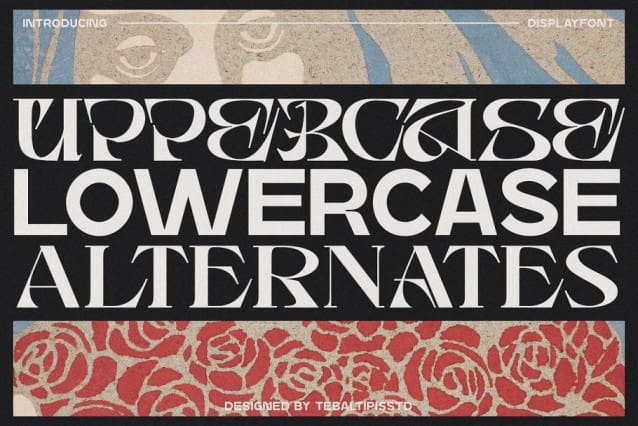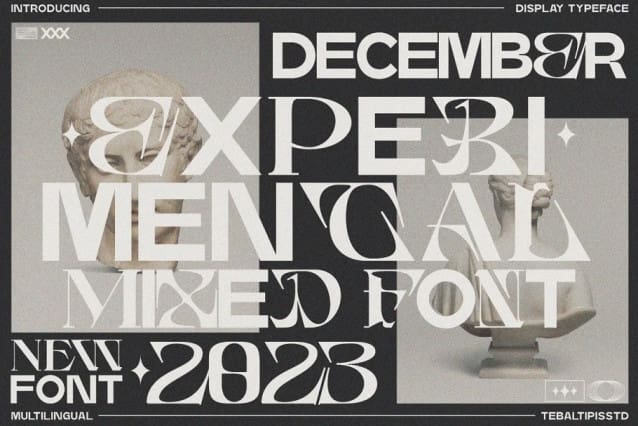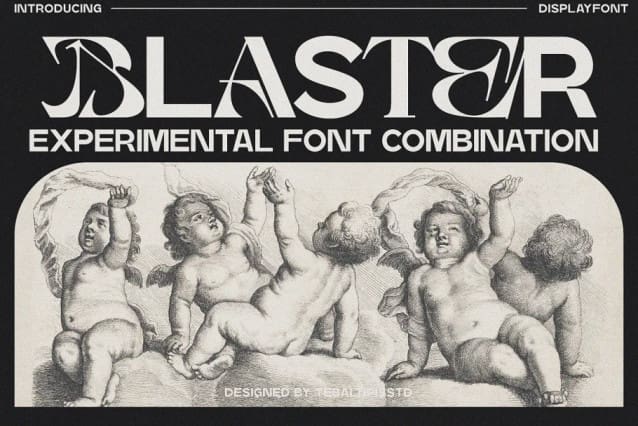
Blaster Display Font
Blaster Display Font is an experimental combination font. include 3 fonts that have a very different style and appearance, but make this font look unique.
This font equipped with several features such as alternative characters, ligatures, and multi-language support that makes it easier for you to design. This font is perfect for your design needs such as poster design, logo design, branding, social media design, book, magazine, etc.